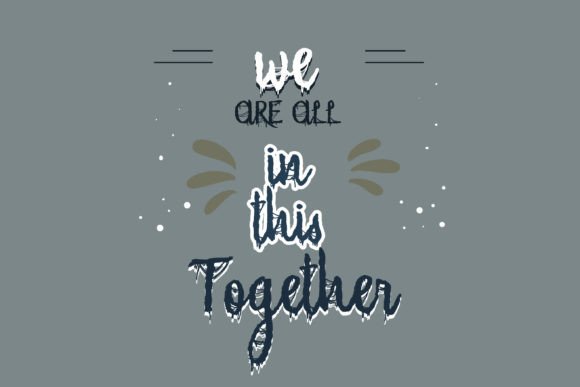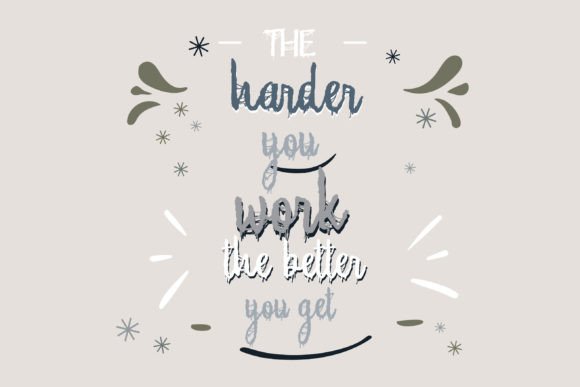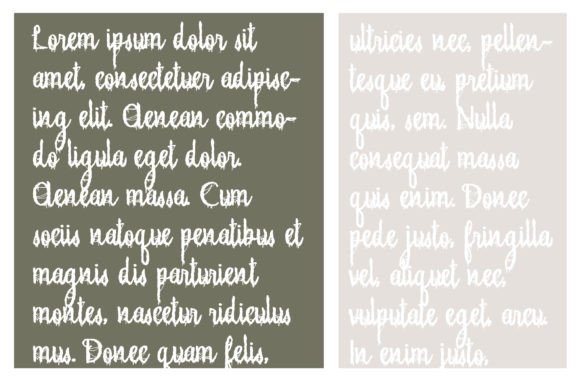
Introduction to Seafaring Searring Font
Have you ever been stuck in a creative rut, searching for the perfect font to elevate your design project? I know I have. It’s like being at sea, navigating through a stormy weather, until suddenly, you spot a beautiful lighthouse on the horizon. And that’s exactly what I felt when I stumbled upon the Seafaring Searring Font.
This enchanting handwritten font is a game-changer for designers. Its unique blend of modern and whimsical styles will transport your designs to a magical world, making them truly unforgettable. With its high-quality design and transparent background, you can be sure that your creations will stand out from the crowd.
And the best part? The Seafaring Searring Font is available for free download, making it an invaluable resource for any creative project. In this article, we’ll dive into the world of this incredible font, exploring its features and how you can use it to take your designs to the next level.
Key Features of Seafaring Searring Font
- High-quality font design ideal for creative projects and design resources.
- Unique, hand-drawn style with a distressed, vintage aesthetic.
- Perfect for designers looking for a unique, high-quality font to add a touch of personality to their projects.
Honest Review: Seafaring Searring Font
As a designer, I’m always on the lookout for high-quality design resources that can elevate my creative projects. Recently, I stumbled upon the Seafaring Searring Font, and I’m excited to share my honest review with you.
- ✨ Unique, nautical-inspired design that’s perfect for ocean-themed projects or those with a vintage vibe.
However, there are some limitations:
- ⚠️ Limited character set, which may not be suitable for longer texts or body copy.
- ⚠️ Some letters may require adjustments to get the desired spacing or alignment.
Overall, I’m impressed with the Seafaring Searring Font. While it may have some limitations, its unique design and transparent background make it a valuable addition to any designer’s toolkit. If you’re working on a creative project that requires a nautical or vintage touch, I highly recommend giving it a try.
Introduction to Seafaring Searring Font
Seafaring Searring Font is a high-quality design resource that can elevate your creative project. This versatile font is available for free download and features a transparent background, making it perfect for various design applications.
Tips for Getting the Most Out of Seafaring Searring Font
Use Seafaring Searring Font in conjunction with other design elements, such as images and graphics, to create a visually appealing design. Experiment with different font sizes and styles to add depth and interest to your design.
Common Use Cases for Seafaring Searring Font
Seafaring Searring Font is ideal for use in creative projects such as logos, posters, and social media graphics. It is also perfect for use in presentations, reports, and other business documents where a high-quality font is required.